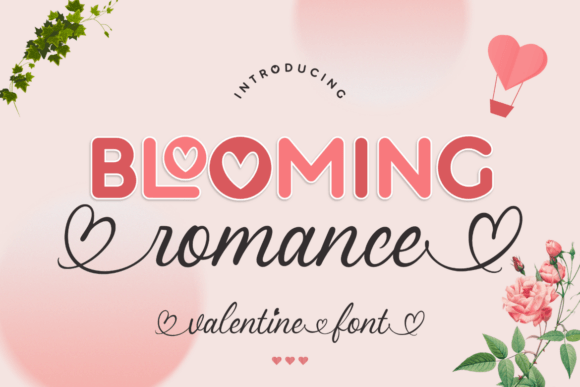
The Ultimate Valentine’s Day Font Duo: Blooming Romance
Ah, Valentine’s Day – a time for love, flowers, and thoughtful gifts. As designers, we’re often tasked with creating romantic and eye-catching projects for this special day. I recall a particularly stressful design moment when I was working on a Valentine’s Day-themed wedding invitation. My client wanted a font that exuded love, sophistication, and playfulness, but I was struggling to find the perfect match. That’s when I stumbled upon the Blooming Romance font duo – a game-changer for any designer looking to infuse their creations with a touch of romance and whimsy.
What Makes Blooming Romance Special?
Blooming Romance is a captivating Valentine’s-centered font duo that combines a bold, whimsical sans-serif typeface with a romantically delicate script font. This dynamic duo is designed to make your headlines stand out and add a touch of elegance to your text. The bold sans-serif font features enchanting heart details, while the script font boasts fluid strokes and elegantly embellished hearts.
- ✨ The perfect blend of playfulness and sophistication, making it ideal for Valentine’s Day projects, wedding stationery, and love-focused brand imaging.
- ✅ The bold sans-serif font’s heart details add a delightful touch of whimsy to any design.
- ✅ The script font’s fluid strokes and heart embellishments create a romantic and elegant feel.
- ✅ The harmonious fusion of both fonts makes them an excellent choice for creating visually appealing designs.
- ⚠️ The font duo may not be suitable for very formal or traditional designs, as it leans towards a more playful and romantic style.
- 🤔 Some users may find the heart details and embellishments a bit overpowering if not used thoughtfully.
A Practical Guide: Using Blooming Romance in Your Designs
The Designer Inspiration Behind Blooming Romance
The Blooming Romance font duo was designed with love and care by a talented font designer who wanted to create a unique and captivating font for Valentine’s Day and romantic designs. The designer’s inspiration came from the beauty of love and the magic of Valentine’s Day, resulting in a font duo that’s both playful and elegant.
| What makes Blooming Romance unique? | Blooming Romance is a font duo that combines a bold sans-serif typeface with a romantically delicate script font, making it perfect for Valentine’s Day projects and romantic designs. |